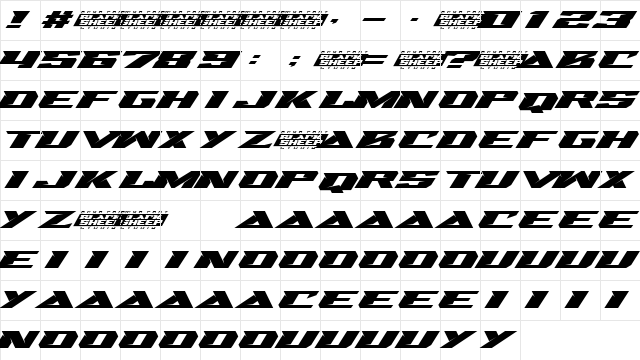
Swipe Race Demo Regular
| Foundry | BLACKSHEEP studio |
| Designer | ckdsign |
Design Context for Swipe Race Demo Typeface
Swipe Race Demo is a composed and adaptable typeface that performs quietly and consistently across a wide range of design contexts.